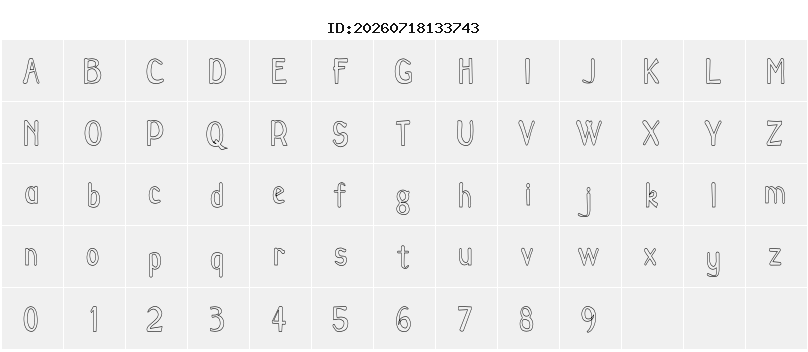
About CarawayHC.ttf
CarawayHC.ttf is a modern, elegant sans-serif font designed for ultimate readability and visual harmony. Perfect for branding, headlines, web design, and print materials.